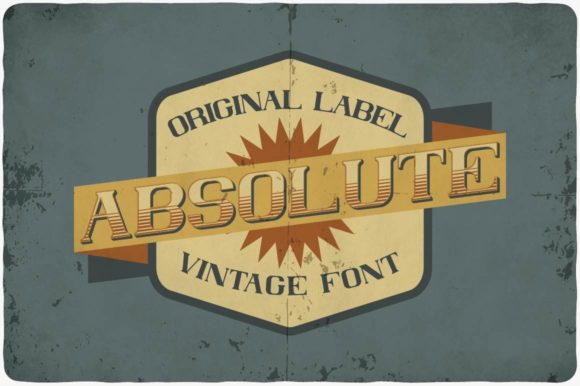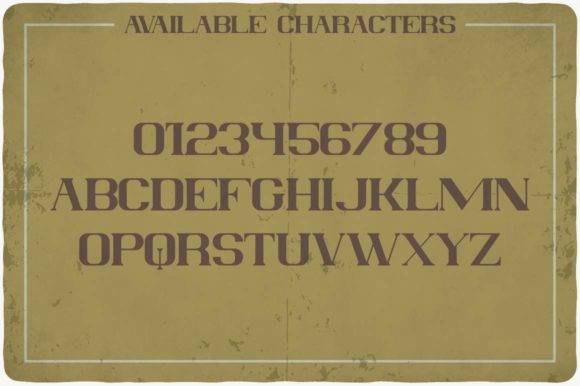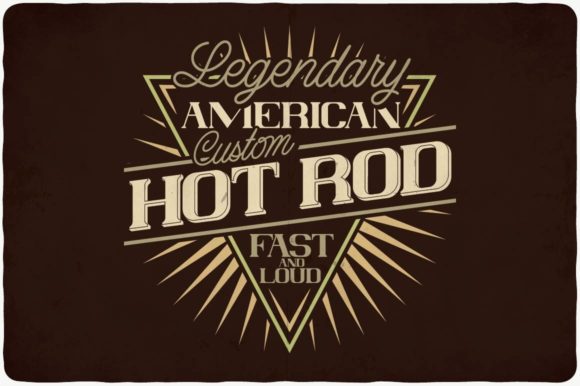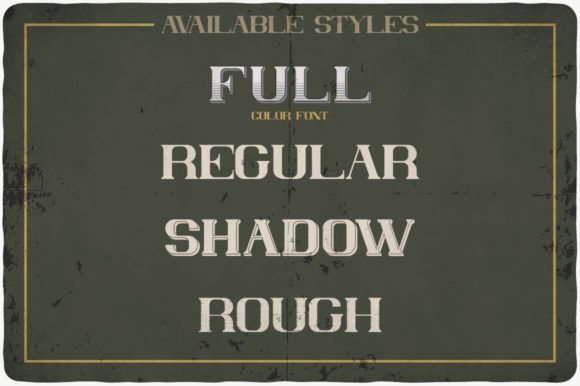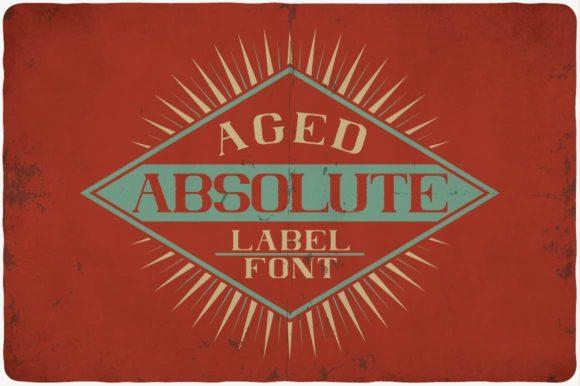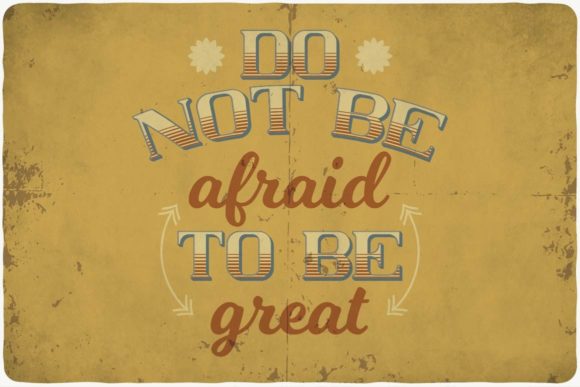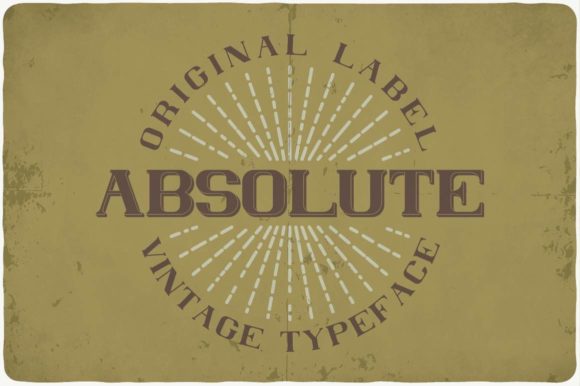
The Designer’s Dream: Unleashing the Power of Absolute Font
I’ll never forget the design project that led me to discover Absolute Font. I was working on a branding campaign for a luxury watchmaker, and I needed a font that exuded sophistication and elegance. After hours of scouring font libraries and trying out various combinations, I stumbled upon Absolute Font. Its bold, vintage style immediately caught my attention, and I knew I had found the perfect fit. In this article, I’ll share my experience with Absolute Font, its features, and how to make the most of it in your designs.
An Honest Review of Absolute Font
• ✨ Bold and eye-catching: Absolute Font makes a statement with its bold, vintage-inspired design.
• ✅ Sophisticated and elegant: Perfect for luxury brands, high-end products, or any design that requires a touch of sophistication.
• 💡 Versatile: Works well for headings, titles, and short paragraphs.
While Absolute Font is an excellent addition to any font library, there are a few things to keep in mind:
• 🤔 Legibility at small sizes: As with many bold fonts, legibility may suffer at very small sizes.
• ⚠️ Limited use for body text: Due to its bold nature, Absolute Font is best suited for headings and titles rather than body text.
The Story Behind Absolute Font
Absolute Font was designed with the intention of creating a bold, yet sophisticated font that would make a statement in any design. Inspired by vintage typography, the designer aimed to craft a font that would evoke a sense of luxury and elegance. Through careful attention to detail and a passion for typography, Absolute Font was born.
Q: What type of projects is Absolute Font best suited for?
A: Absolute Font is ideal for luxury brands, high-end products, and designs that require a touch of sophistication.
Q: Can I use Absolute Font for body text?
A: While possible, Absolute Font is best suited for headings and titles due to its bold nature.
Q: Does Absolute Font support OpenType features?
A: Yes, Absolute Font supports OpenType features, including ligatures and stylistic alternates.
Q: Is Absolute Font suitable for digital use?
A: Absolutely! Absolute Font works well for digital designs, including websites, social media graphics, and more.